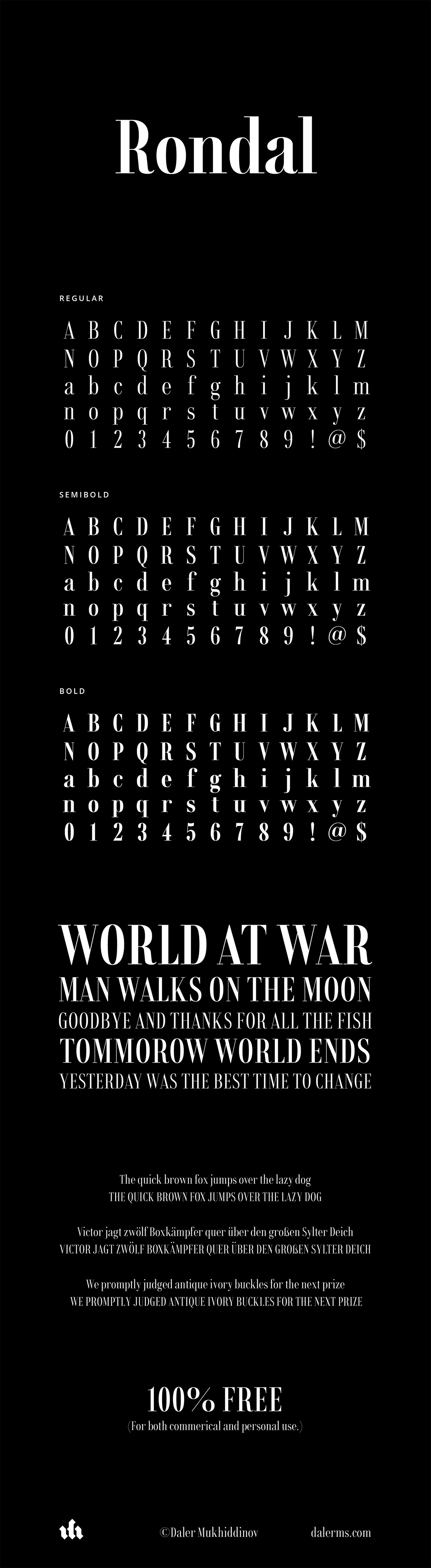
Rondal Serif Free Typeface is a free condensed font family by Daler Mukhiddinov. The high-contrast font design will help you perfect your historical or formal or high class business design ambience. In addition, the sleek and high contrast design of Rondal is perfect for short text usage, for brand or company logo or article title both in web device or print.